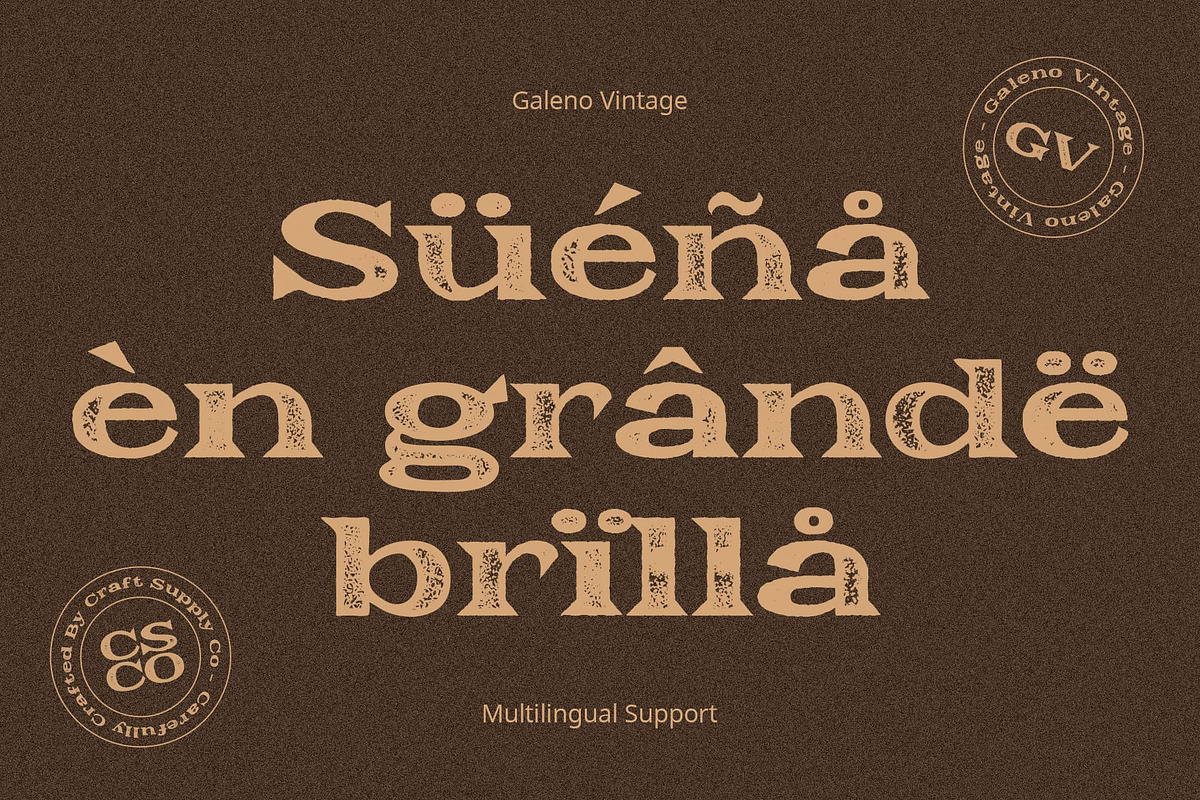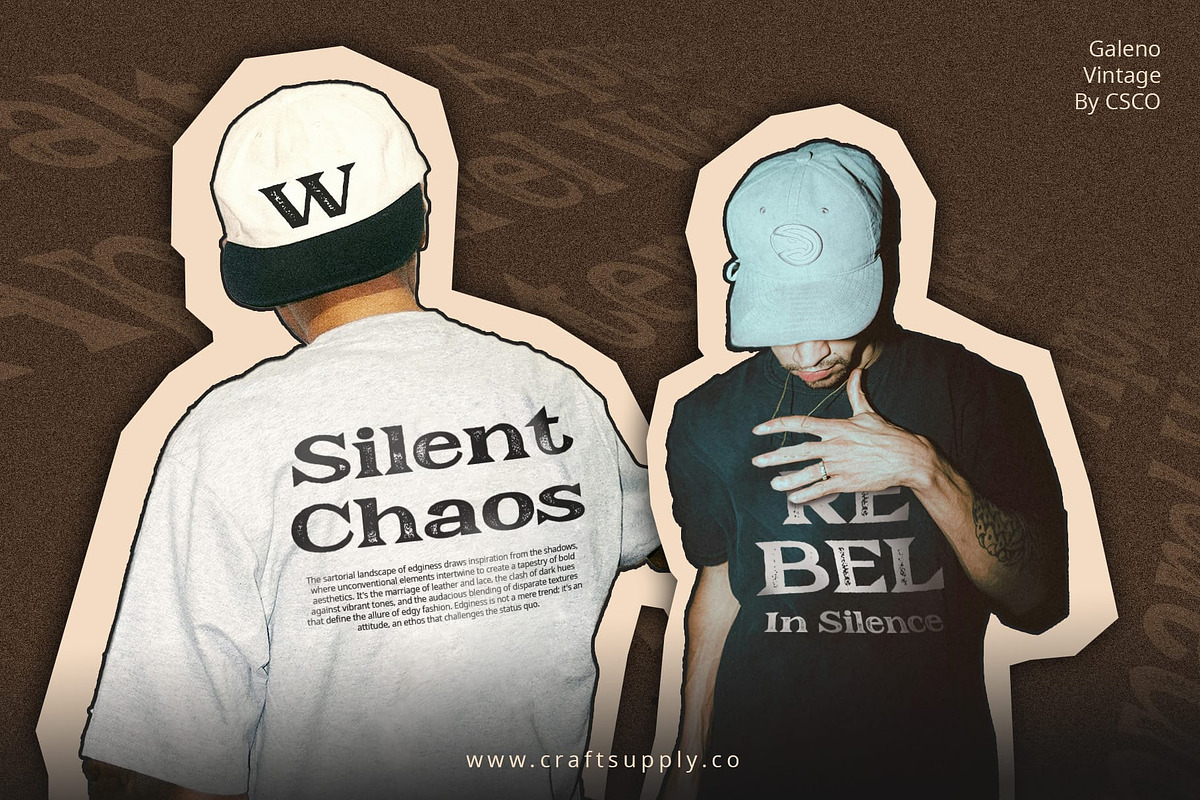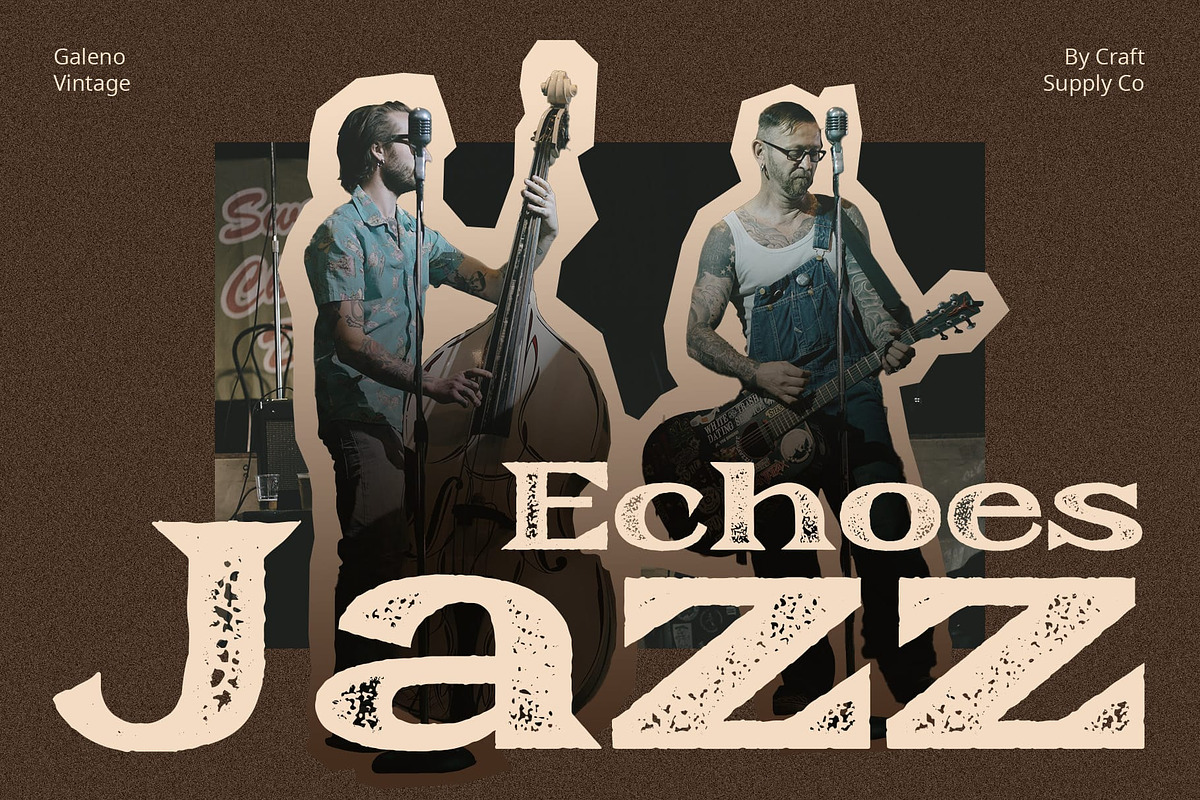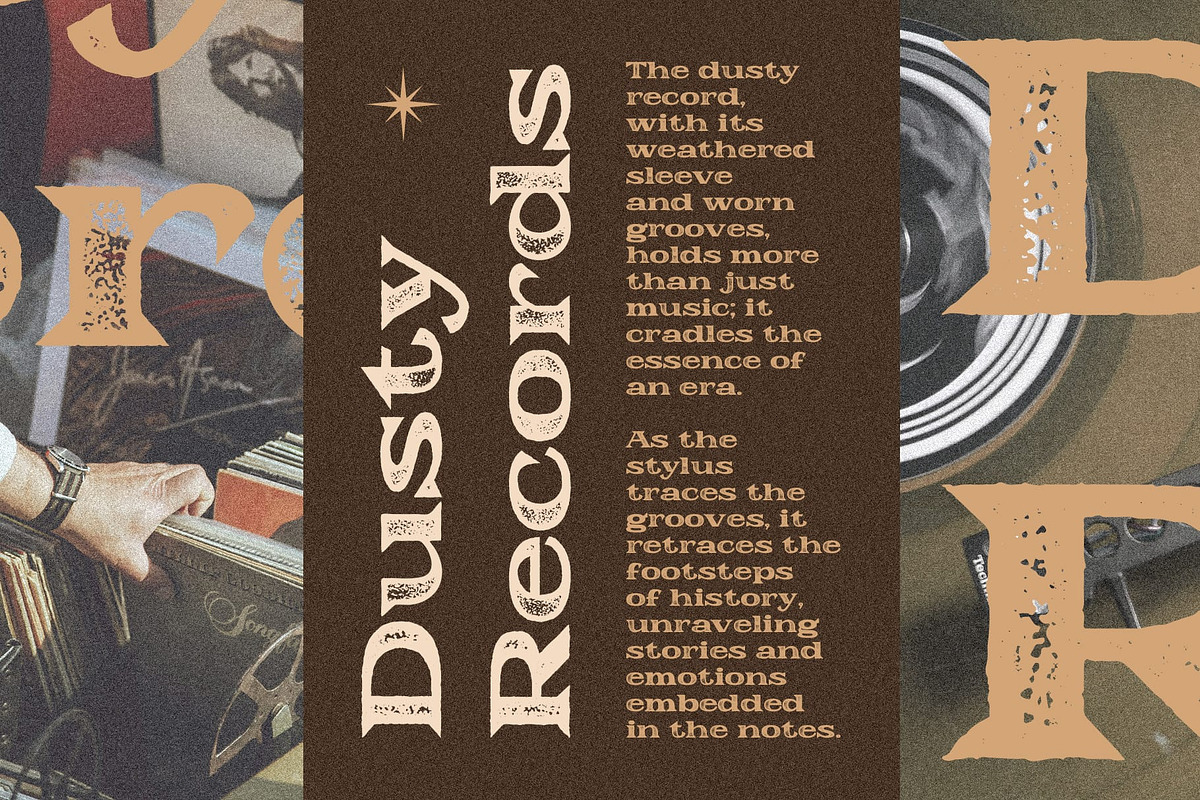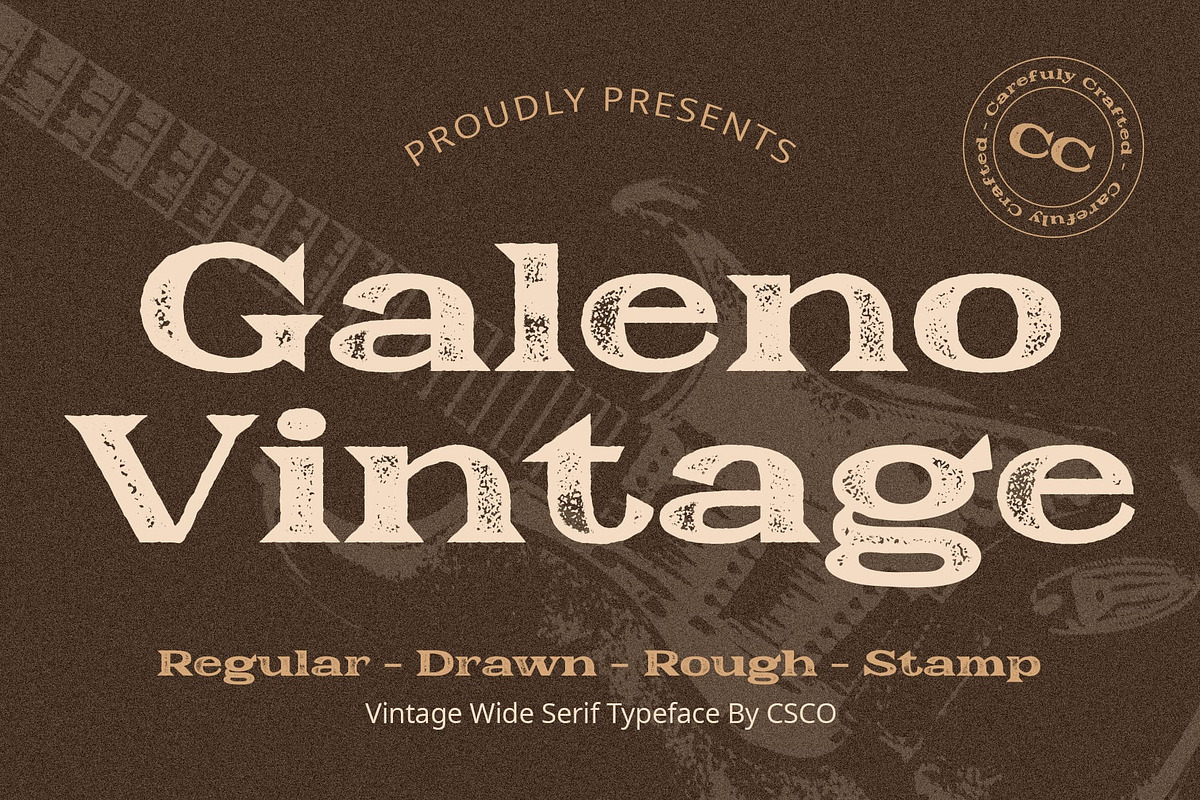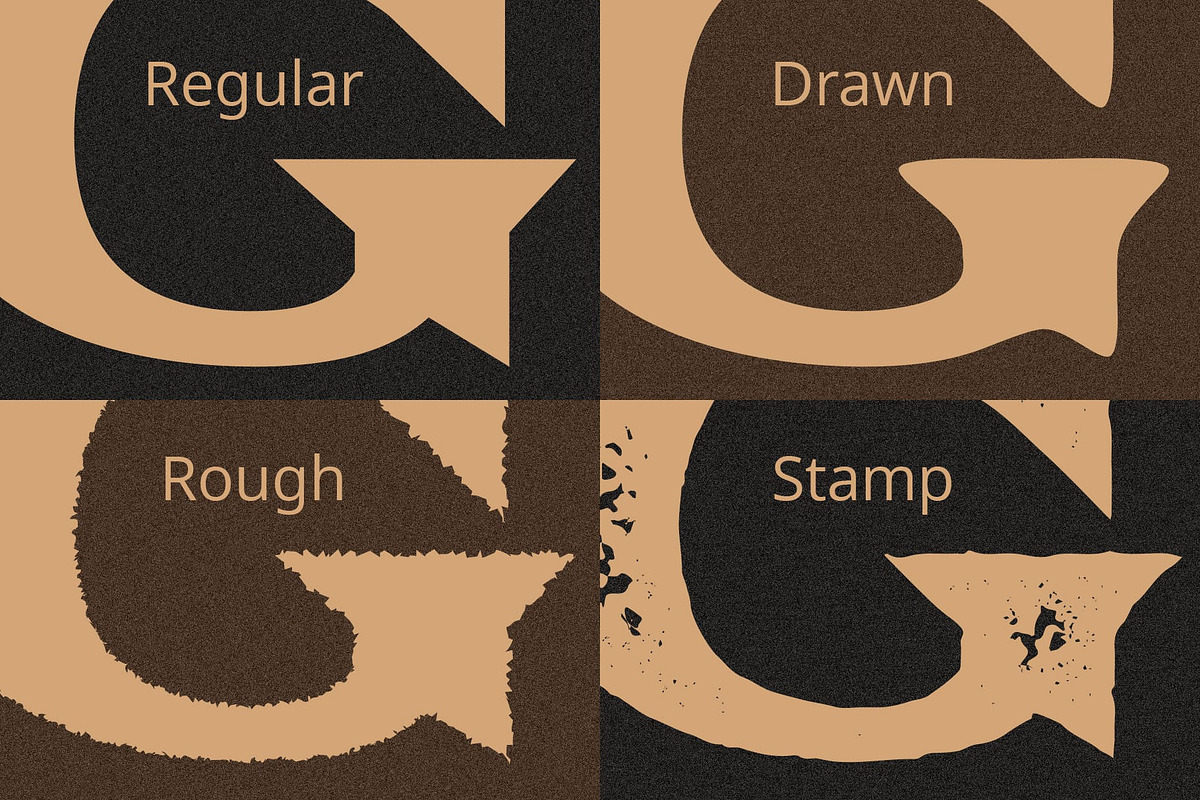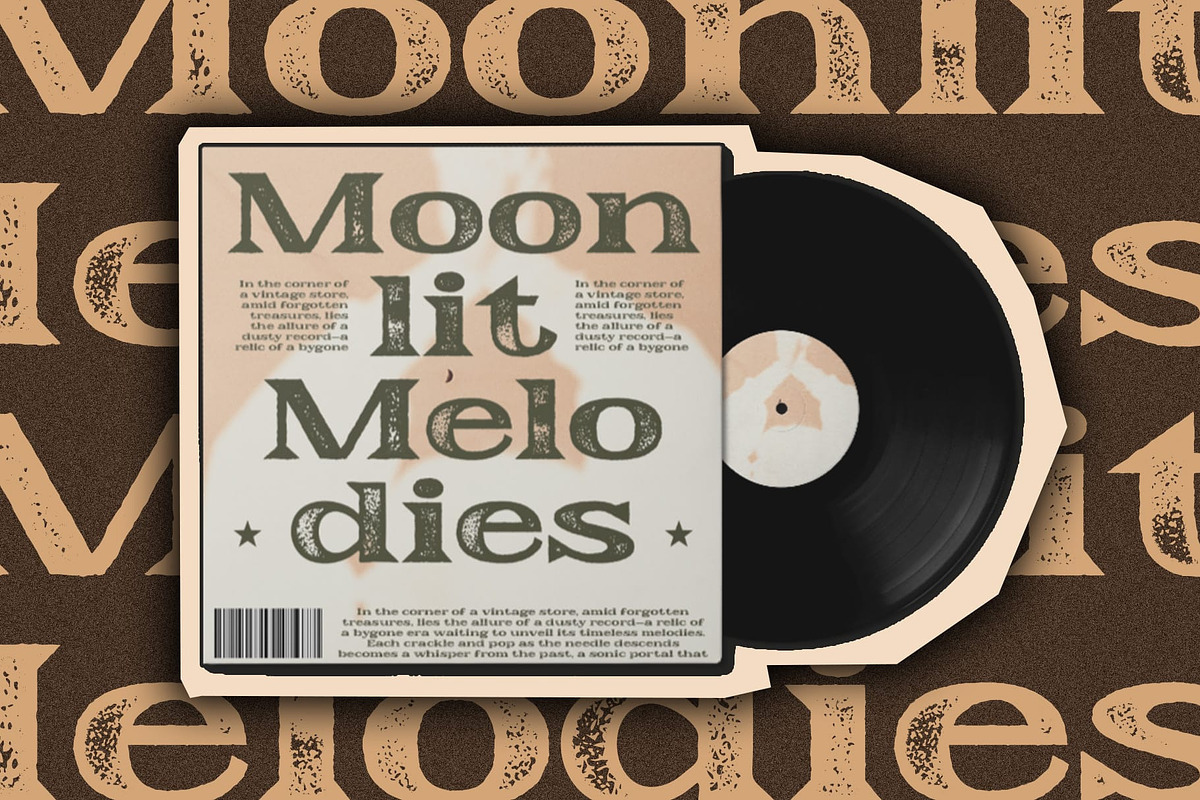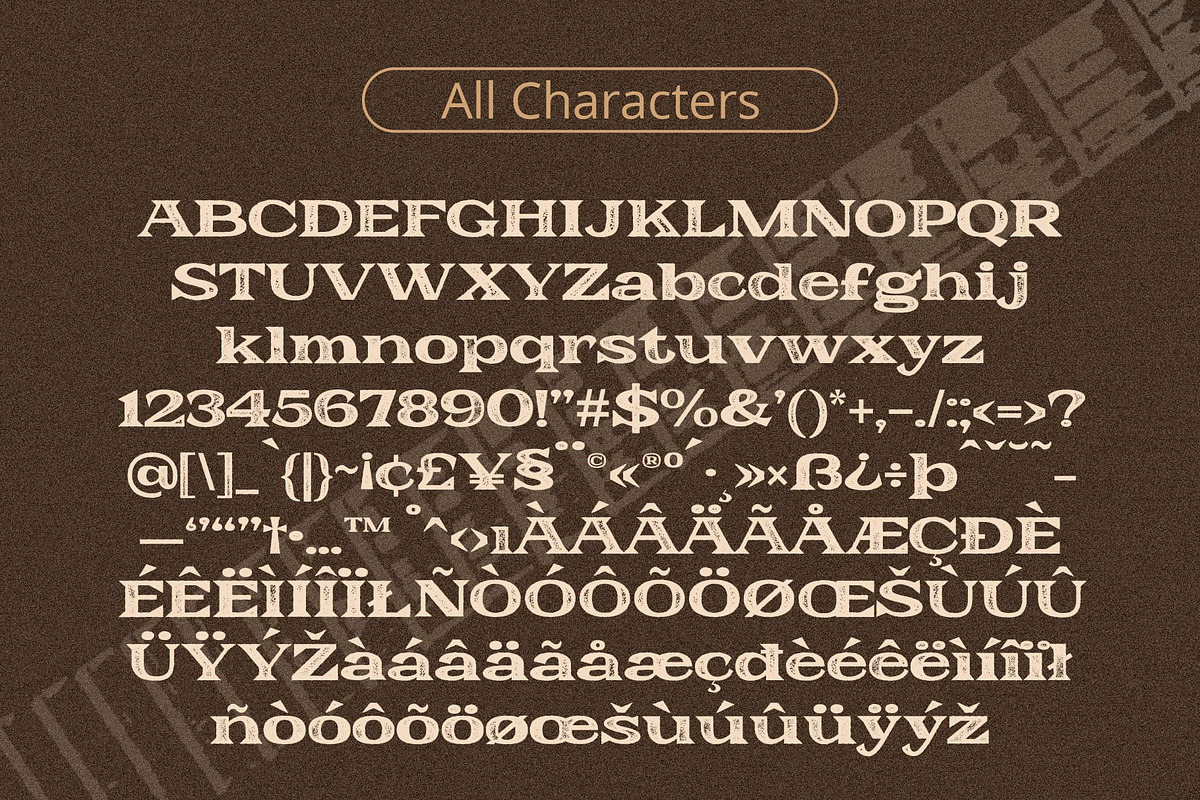
Galeno Vintage
Galeno Vintage: Reviving Classic Elegance
Nostalgic Inspiration Galeno Vintage channels the spirit of custom motorcycles, infusing a classic, old-world charm into every serif. Inspired by vintage aesthetics, it captures the essence of a bygone era.
Displaying Rugged Authenticity With a nod to custom motor craftsmanship, Galeno Vintage embraces the beauty of imperfections. Its vintage rough effects add an authentic touch, making it a striking choice for any display project.
Eye-Catching Elegance This font doesn’t just evoke nostalgia; it demands attention. The blend of old-world nuances and vintage roughness ensures that every character is not just seen but remembered.
Versatility in Display From posters to branding, This font offers a unique charm for diverse design projects. Its versatility ensures that any display application benefits from a touch of classic elegance and rugged authenticity.
In Conclusion: Galeno Vintage – A Testament to Timeless Style This font stands as a testament to the enduring appeal of classic design. With its vintage-inspired nuances and rugged authenticity, it breathes life into any project, infusing it with a timeless and captivating style. Step into the world of Galeno Vintage, where classic elegance meets contemporary design demands.